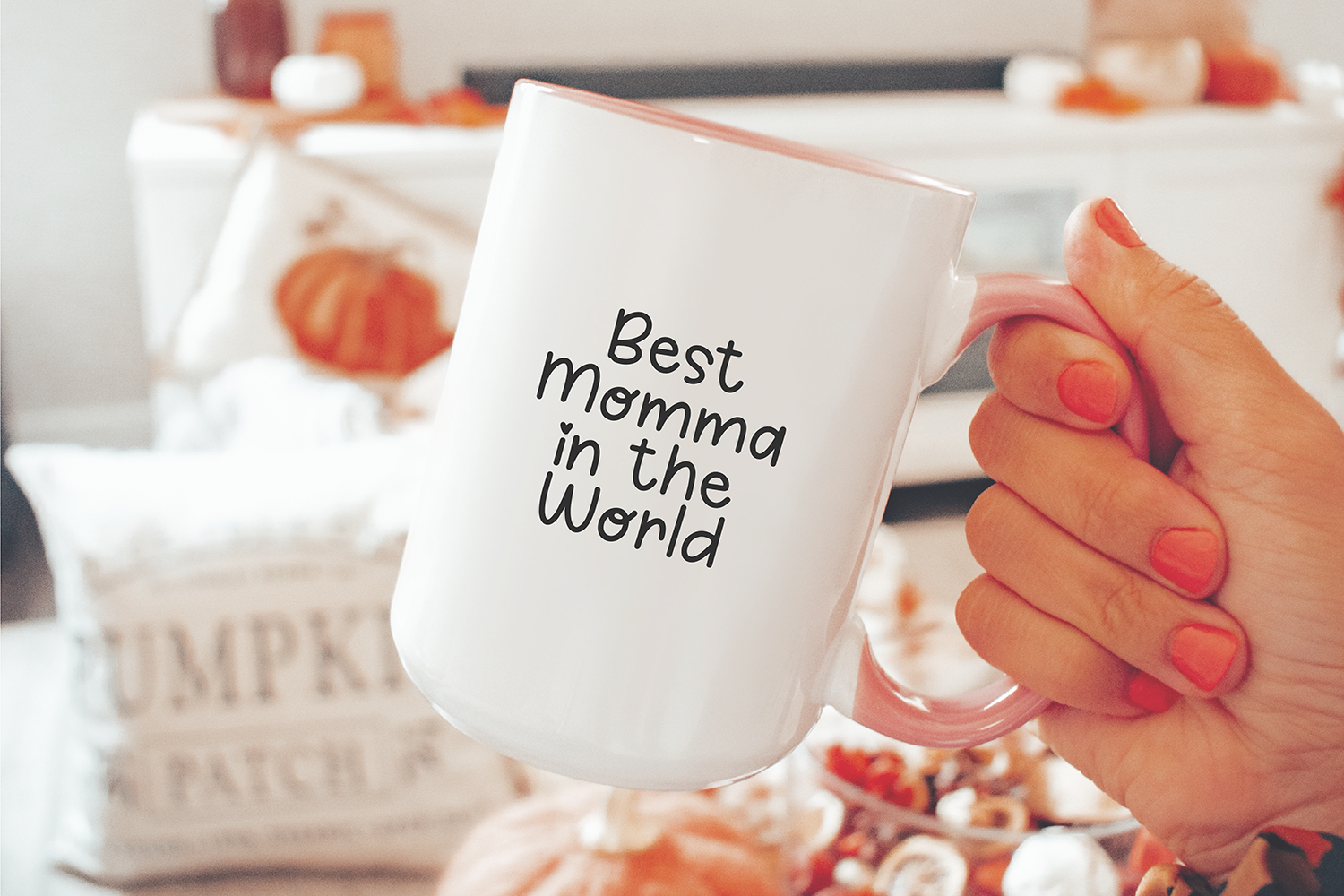
"Unlikely Island" Cute feminine playful handwriting font.
Unlikely Island is a simple and cute handwriting font that is perfect for social media or goodnotes or digital planning. Use it for branding, crafts for decor, invitations, and more! This font includes upper and lowercase glyphs, numbers, basic punctuation marks, and intl characters.